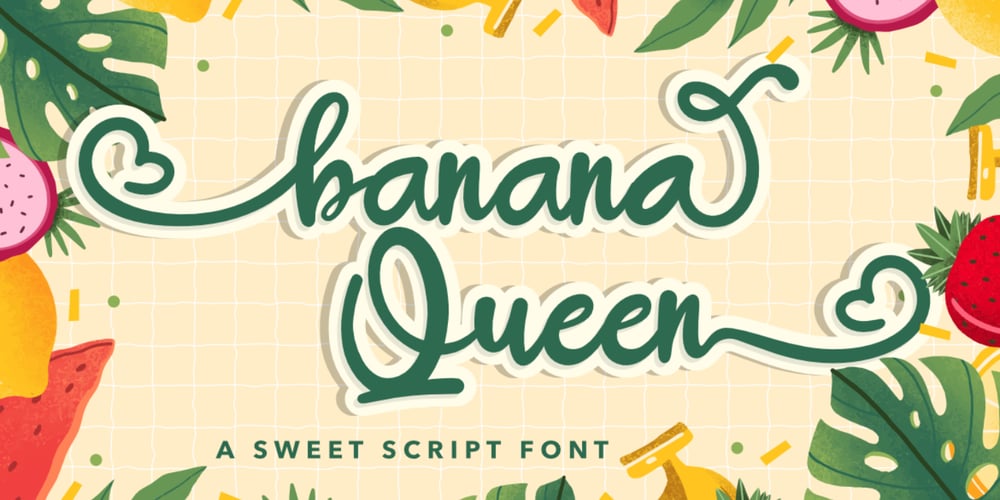
Banana Queen Font Family was designed by Bayu Aji Fais Mursid and published by Bayuktx. Banana Queen contains 1 styles and family package options. Hello,Thank you for visiting my products, we will give you the best choice.Banana Queen, This font is made with a high premium quality level which you can use as flyers, quotes, posters, banners, packaging, merchandise, logotypes and much more.FEATURES :* Uppercase* Lowercase* Number* Punctuation* Multilingual* PUA Encode* OpentypeFILES INCLUDED :* Banana QueenThank you